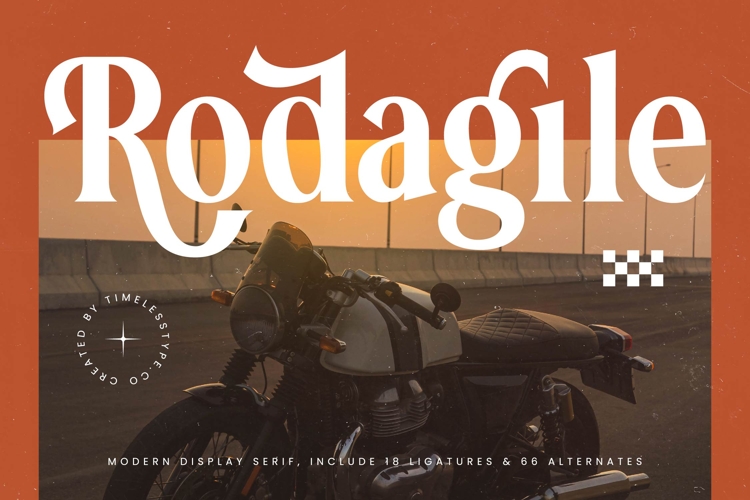
Rodagile - Modern Display Serif
Rodagile Typeface is a modern display serif font that embodies bold sophistication, speed, and timeless elegance. Featuring 18 ligatures and 66 stylistic alternates, this typeface gives designers the freedom to craft expressive, dynamic, and luxurious typography. Its tall letterforms, sharp serifs, and flowing alternates bring a balance of power and refinement, making it particularly suited for projects that need to communicate strength, style, and modern artistry.